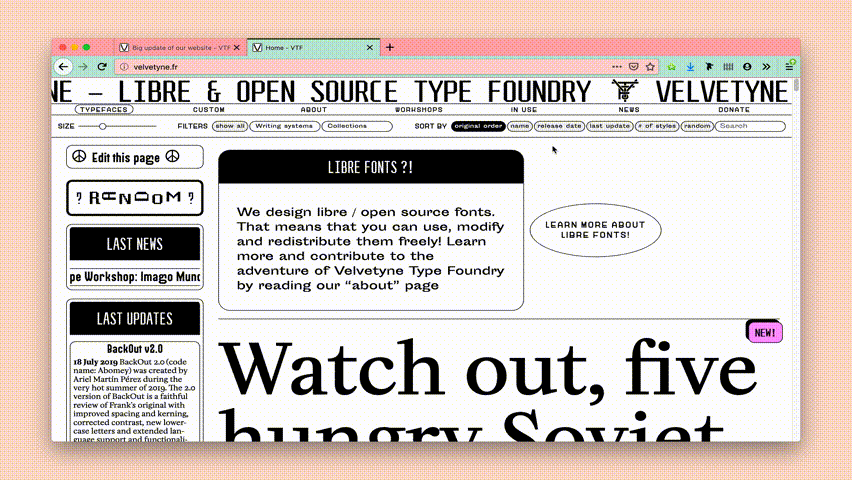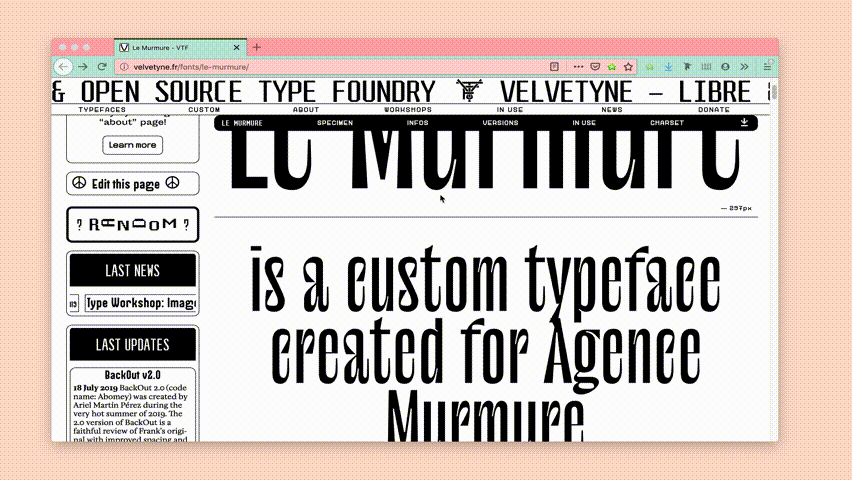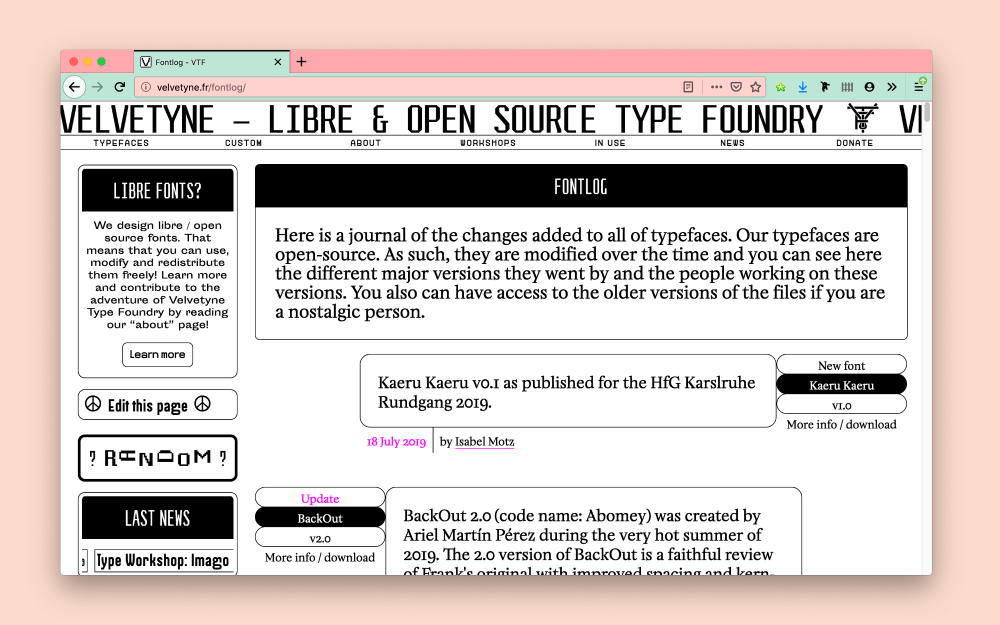
Big update of our website
The actual version of our website that you have under your eyes has been first designed and coded by Raphaël Bastide back in April 2014. Since then, it has grew a lot, has been slightly updated many times and has seen the number of fonts displayed drastically increase. We love our website has Raphaël made it. Its black and white, its marquees, its blinking look and feel. This website is the cornerstone of our identity and our main link between our fonts and their users.
The increasing size of our catalogue, the increasing diversity of the fonts that join it and the increasing number of styles per families — when we where used to release mainly single-style family — asked for a slight re-thinking and redesign of how we show our fonts.
Here are the main changes
- Total redesign of the homepage with the hability to sort and filter our typefaces with many parameters such as the number of styles, release date… This was made thanks to David Desandro’s Isotope. We also created a new way to display font-families with numerous styles which put emphasis on a master style.
- Wider display. We got rid of our right column to give more room to every page. Some of the content moved to the still exisiting left column when some other moved to our brand new footer.
- Body copy font. Thrilled by this font we were about to publish, we decided to change our text font for our newly released Minipax by Raphaël Ronot. It’s now used for pretty all the small size and longer texts you’ll find on the website. We hope that you’ll like it as much as we do. It’s almost to comfortable to read, isn’t it?
- Web specimen. Goodbye our former never-changing template, now each font has it’s own web-specimen that shows its particular qualities way better. Those web-specimen will even show you the opentype features embedded in our fonts. Are we in 2013?? Also, goodbye our good ol’ test zone, because now every piece of specimen text can be modified by our visitors.
- Charset. Our charset now shows every character in the fonts, even the ones without any unicode code, thanks to the opentype.js tool.
- Version history. Certain of our fonts have an insteresting story to tell. They been updated, modipfied, upgraded, sometimes by their original author(s), sometimes by different people, over time, during years for some of them. We needed to tell this story. Our new version history section tells what has been made on each version and by whom and gives access to the files of each version! This allows some deep time traveling. We also coded some pretty neat automatic family tree.
- Better credits. We now provide more precise credits about the team who worked on each typeface.
- Fontlog! You can have an overall chronological view on each release or update that has been made to each of our fonts, since the beginning. Dive inside our history.
- About section. Our about page became a whole section with sub-pages such as a handy and growing F.A.Q. or a summary of our activities along the years (workshops, exhibitions, publications, awards…). We even had a ressources pages where we will list and add any tool that we used or find handy.
- Footer. Let’s introduce a plain and simple footer that allows some straitforward navigation threw the pages of our website.